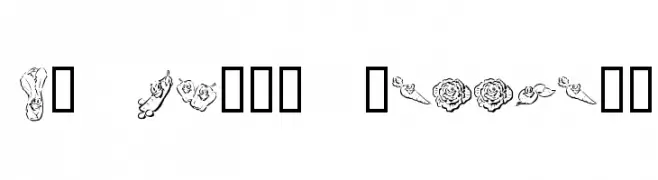
( Fonts by Rodrigo German - RASDESIGN )
A playful collection of hand-drawn dingbats featuring whimsical designs.
( Fonts by Galdino Otten - galdinootten.com )
A decorative font featuring intricately designed zodiac symbols.
A playful, decorative font featuring whimsical fruit characters.
( Fonts by bob istheowl http://luc.devroye.org/bobistheowl.html )
A decorative font featuring bold, artistic symbols and imagery.
A bold, playful font with a spooky twist, featuring dynamic strokes and quirky characters.
A decorative font featuring whimsical frog illustrations for each character.